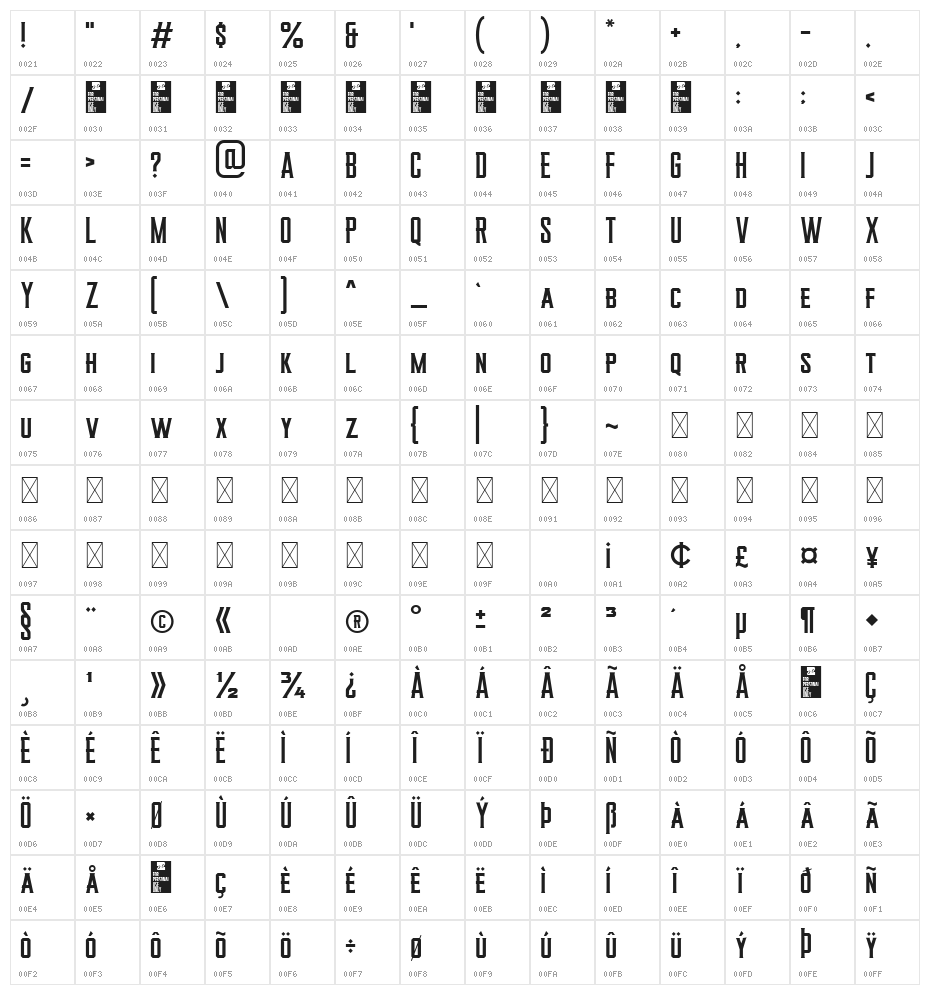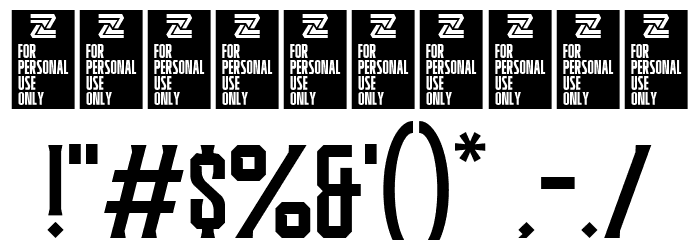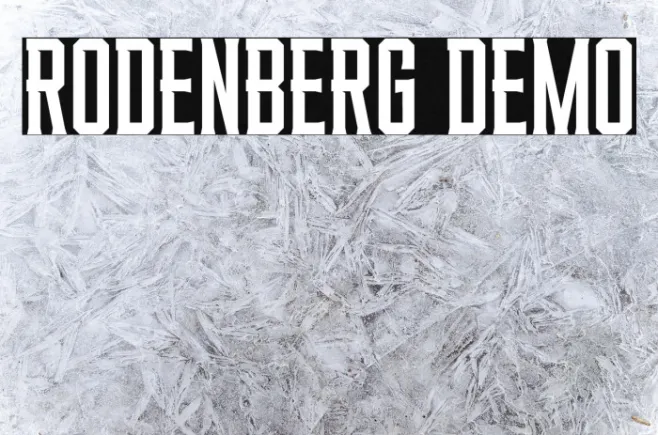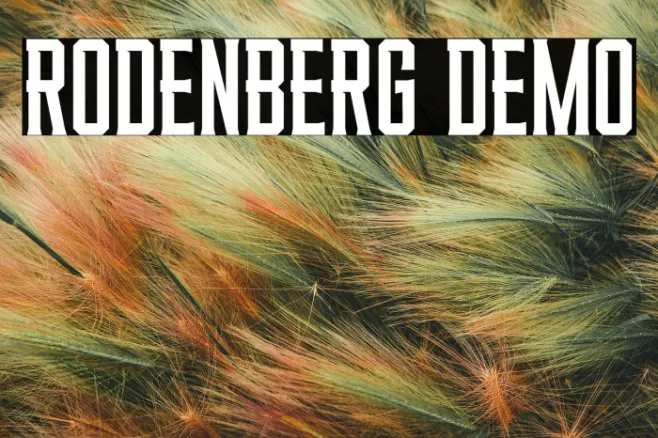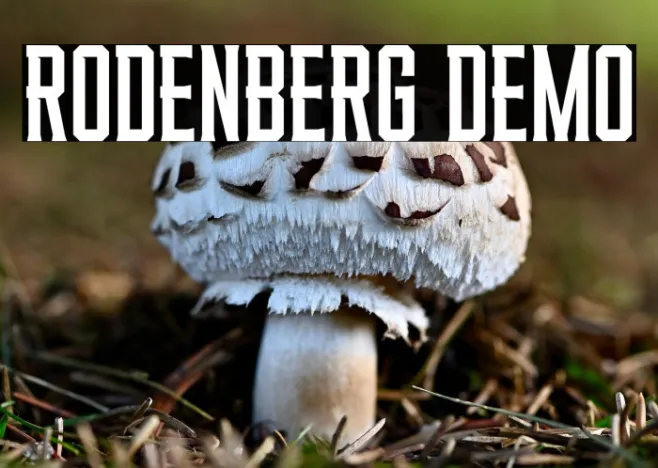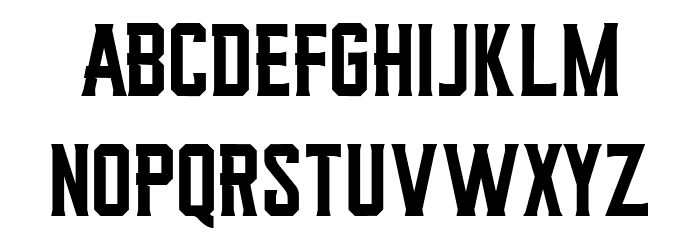
RODENBERG DEMO Font
RODENBERG DEMO Description
This font features a bold and striking design with a strong geometric influence. The uppercase letters are tall and narrow, with sharp angles and a consistent stroke width that conveys a sense of strength and modernity. The characters are tightly spaced, enhancing the compact and impactful appearance. The font includes a full set of uppercase letters and a variety of special characters, making it versatile for various design needs. Its boldness and unique style make it ideal for attention-grabbing headlines and logos.
| Proposed Projects | Ideal for branding, poster design, and any project requiring a strong, modern typeface. |